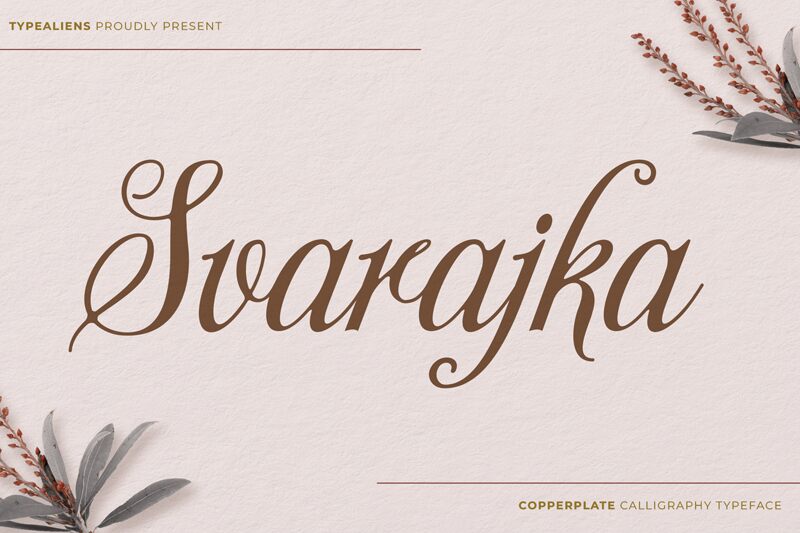
Svarajka font by TypeAliens is a free calligraphic script font. For designers who crave romance without the usual muddiness, it nails the sweet spot between lavish swashes and clear, steady rhythm. Ribbon-like curves sweep into crisp hairlines, and the inky contrast feels handcrafted yet controlled, so names, headlines, and short phrases stay effortlessly readable.
Using Svarajka, you can elevate wedding invitations, event stationery, boutique logos, beauty packaging, patisserie menus, and elegant certificates. This free font shines on short, high-impact text where its flowing motion can breathe. Pair it with a quiet sans to keep the spotlight on the script, and set it a touch larger with generous margins to let those graceful strokes unfurl.